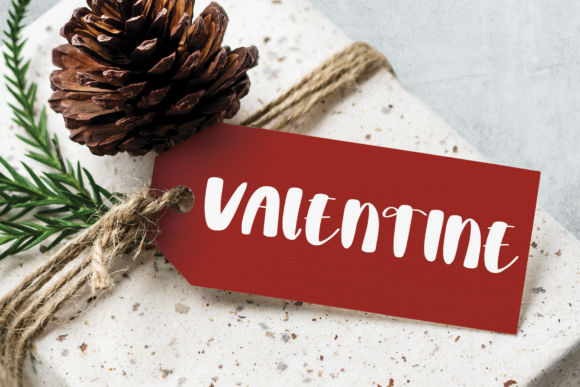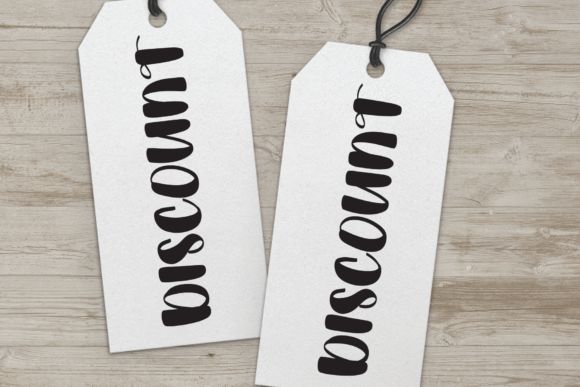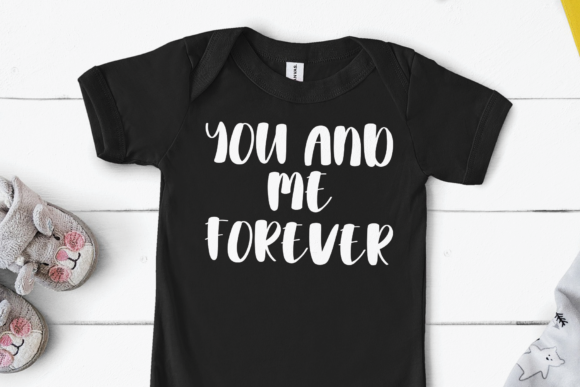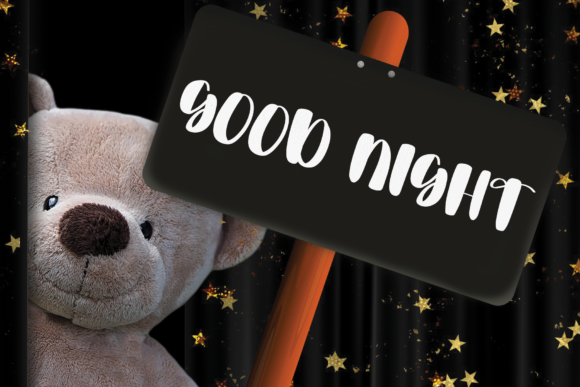
About Forever Font
Forever is a trendy, thick lettered and cool handwritten font. Whether you’re looking for fonts for Instagram or calligraphy scripts for DIY projects, this font will turn any creative idea into a true piece of art!